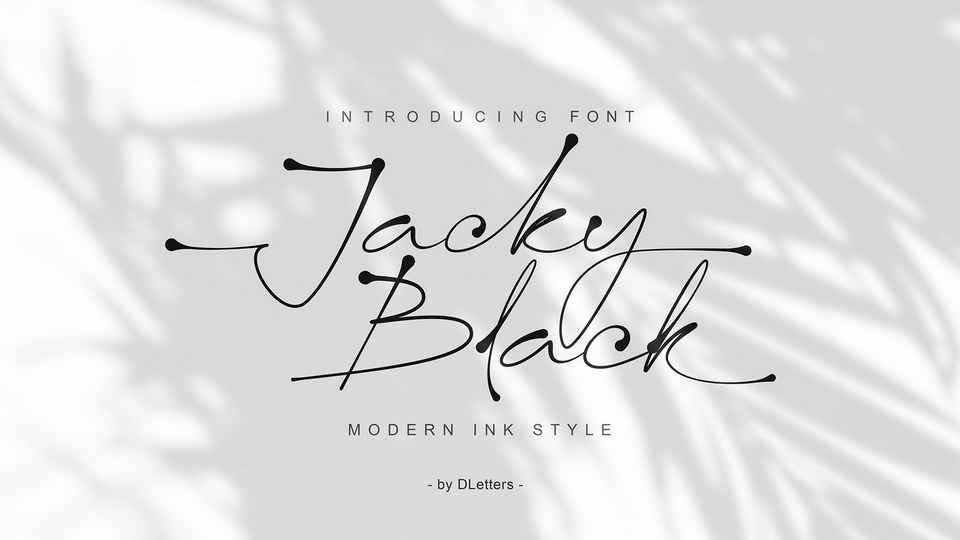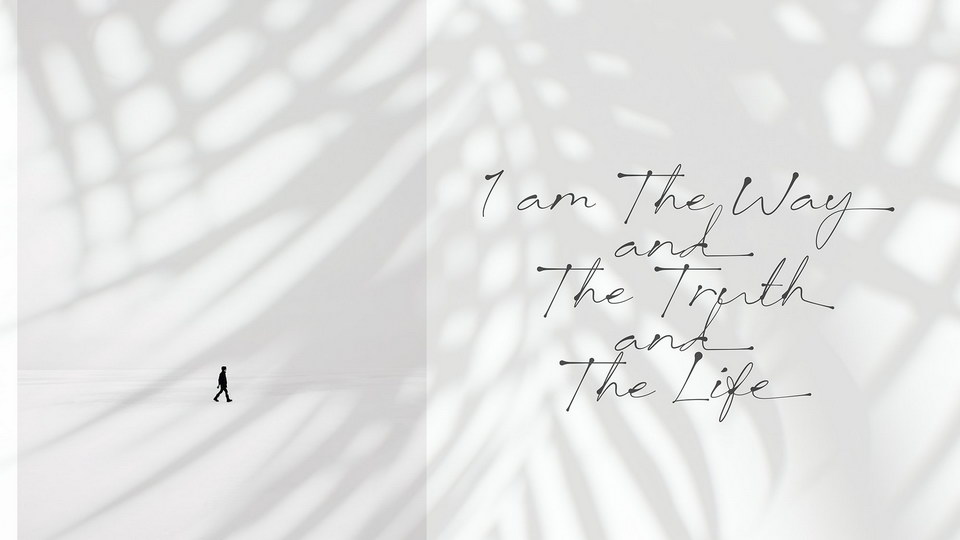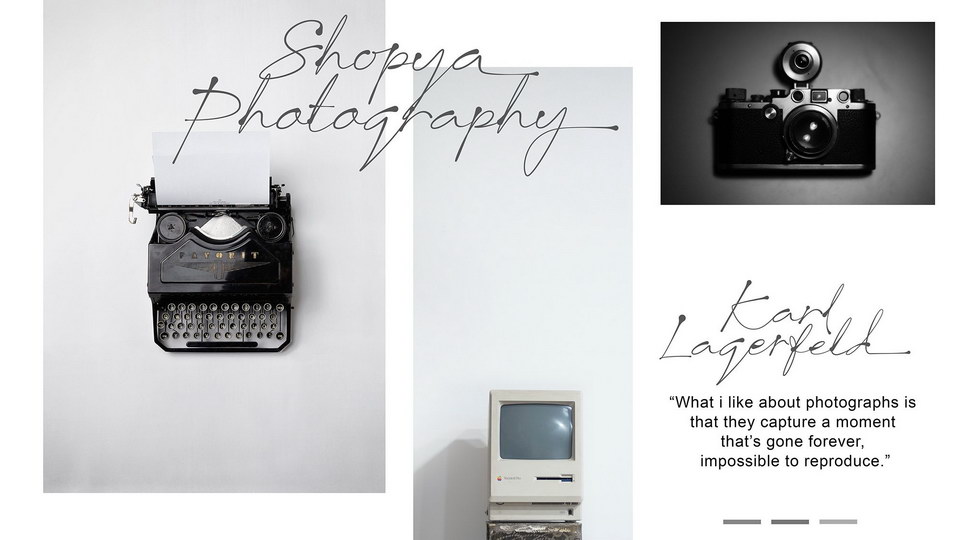
Jacky Black is a handwritten ink style font that has a simple and natural shape, but still look elegant and exclusive. It is suitable for use in your creative ideas, who want unique and natural-looking writing to support your beautiful design.